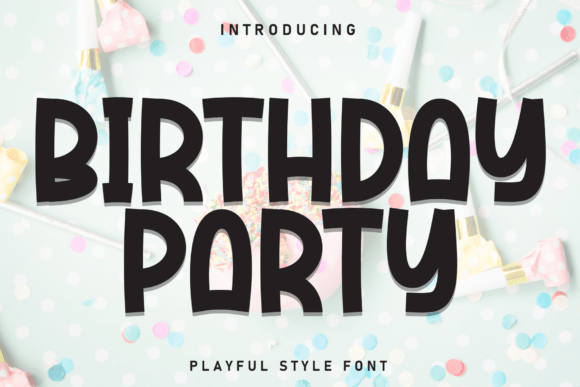
The Ultimate Guide to Birthday Party Font: Elevate Your Designs with a Fresh and Friendly Vibe
I’ll never forget the time I was working on a birthday party invitation project for a client, and I just couldn’t seem to find the perfect font. The design needed to be fun, yet elegant; playful, yet sophisticated. I scoured the internet, tried out countless fonts, but nothing seemed to fit the bill. That was until I stumbled upon the Birthday Party font. ✨ It was love at first sight! With its clean lines, relaxed structure, and fresh vibe, it was exactly what I needed to bring the design to life.
An Honest Review of Birthday Party Font
- ✅ Clean and neat design: The font’s clean lines and relaxed structure make it perfect for a variety of design projects, from packaging to social media graphics.
- ✨ Fresh and friendly vibe: The font radiates a warm and approachable feel, making it ideal for designs that need to convey a sense of fun and playfulness.
- ✅ Polished appearance: Despite its casual nature, the font maintains a polished appearance that’s perfect for professional designs.
- ✅ Versatile: The font can be used for a wide range of projects, from posters and flyers to packaging and social media graphics.
While the Birthday Party font is an excellent choice for many designs, there are a few things to keep in mind: ⚠️
- 🤔 Limited use in very formal designs: While the font is polished, its casual nature may not make it the best choice for very formal designs, such as corporate logos or business cards.
- ⚠️ May not work well at very small sizes: As with many display fonts, the Birthday Party font may not be legible at very small sizes, so it’s best to use it at larger sizes or for headlines.
The Backstory Behind Birthday Party Font
The Birthday Party font was designed by a team of creatives who wanted to create a font that would capture the fresh and friendly vibe of a birthday party. 🎉 The designers drew inspiration from classic party decorations, bright colors, and playful patterns to create a font that’s both fun and elegant. The result is a font that’s perfect for designs that need to convey a sense of joy and celebration.
| What is the Birthday Party font best used for? | The Birthday Party font is best used for designs that need to convey a sense of fun and playfulness, such as birthday party invitations, posters, and social media graphics. |
| Is the Birthday Party font suitable for body text? | No, the Birthday Party font is a display font and is best used for headlines and titles. For body text, it’s best to use a more legible font. |
| Is the Birthday Party font available in different styles? | Yes, the Birthday Party font comes in several different styles, including regular, bold, and italic. |